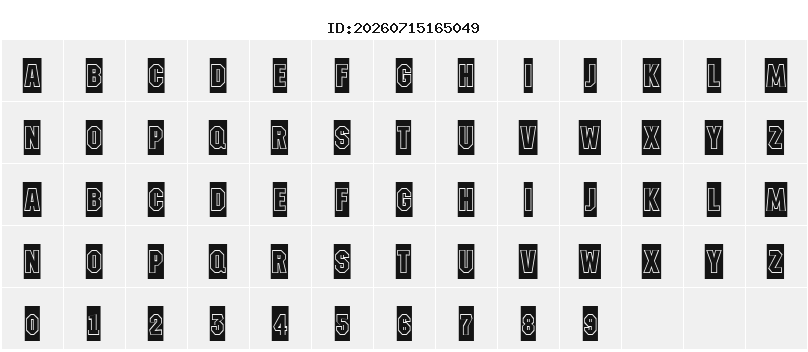
a_MachinaNovaCmGr.ttf is a modern, elegant sans-serif font designed for ultimate readability and visual harmony. Perfect for branding, headlines, web design, and print materials.